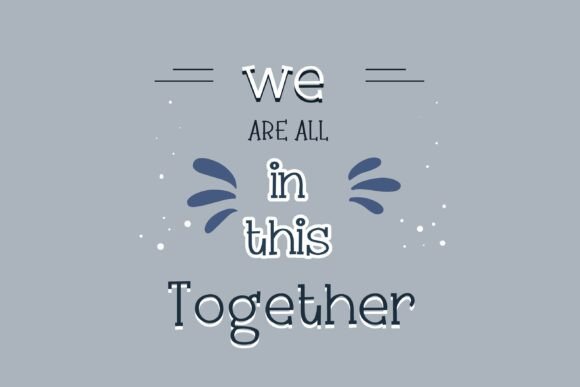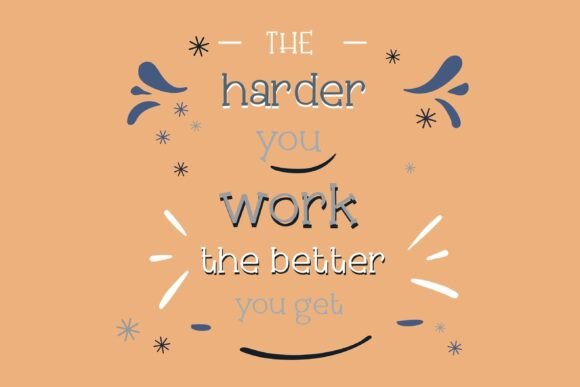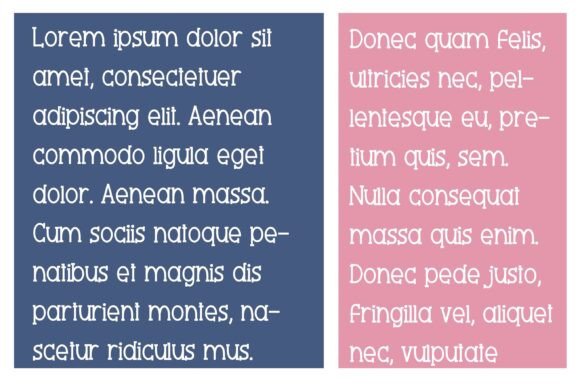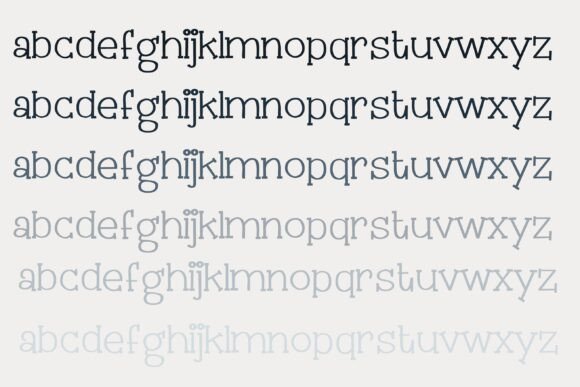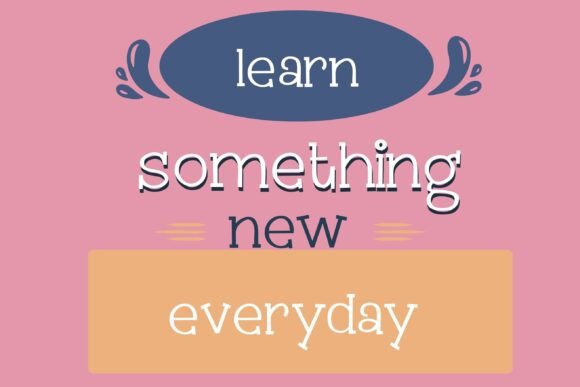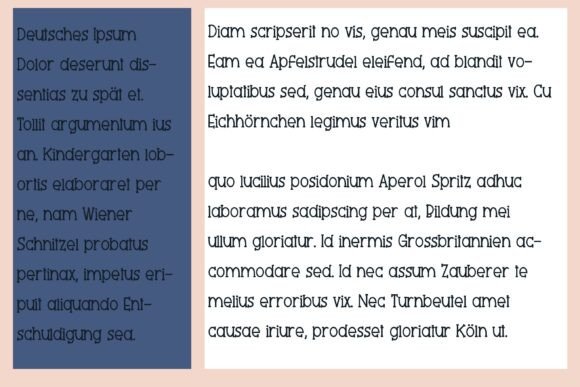
Fudgers Font: A Hand-Crafted Slab Serif Font for Creative Projects
In the world of typography, hand-crafted fonts have gained immense popularity for their unique and personalized touch. One such font that has caught the attention of designers and crafters is Fudgers Font, a hand-printed font with slab serifs throughout. In this article, we’ll explore the characteristics of Fudgers Font, its uses, and why it’s a great addition to your font collection.
A hand-crafted font is a typeface designed to resemble handwriting. It’s created to mimic the imperfections and uniqueness of handwritten text, giving it a personal and organic feel. Hand-crafted fonts can range from formal and elegant to informal and playful, making them versatile for various design projects.
Characteristics of Fudgers Font
Fudgers Font is a slab serif font, characterized by its thick, block-like serifs. The font’s hand-crafted nature gives it a distinctive, hand-printed look that’s perfect for designs that require a personal touch. The slab serifs add a touch of ruggedness and sophistication, making Fudgers Font suitable for a wide range of applications.
Uses of Fudgers Font
Fudgers Font is an excellent choice for designers and crafters looking to add a personal touch to their projects. Some popular uses of this font include:
- Invitations and Greeting Cards: Fudgers Font’s hand-crafted look makes it perfect for creating invitations, greeting cards, and other paper crafts.
- Branding and Packaging: The font’s unique character can help brands stand out and create a memorable identity.
- Digital and Print Media: Fudgers Font can be used in digital media, such as social media graphics, blog posts, and email newsletters, as well as in print media, like brochures, flyers, and posters.
Why Choose Fudgers Font?
Fudgers Font offers several benefits that make it an attractive choice for designers and crafters:
- Unique and Personalized: The font’s hand-crafted nature ensures that your designs stand out from the crowd.
- Versatile: Fudgers Font can be used for both formal and informal designs, making it a great addition to your font collection.
- Easy to Read: The slab serifs and clear letterforms make Fudgers Font easy to read, even at small sizes.
Tips for Using Fudgers Font
To get the most out of Fudgers Font, consider the following tips:
- Pair with Other Fonts: Combine Fudgers Font with other fonts to create a unique and visually appealing design.
- Experiment with Colors: Try out different colors and textures to enhance the font’s hand-crafted look.
- Use for Headings and Titles: Fudgers Font is perfect for headings and titles, adding a touch of personality to your designs.
Fudgers Font is a unique and versatile hand-crafted font that’s perfect for designers and crafters looking to add a personal touch to their projects. With its slab serifs and hand-printed look, this font is suitable for a wide range of applications, from invitations and greeting cards to branding and packaging. Whether you’re a seasoned designer or a crafting enthusiast, Fudgers Font is a great addition to your font collection.